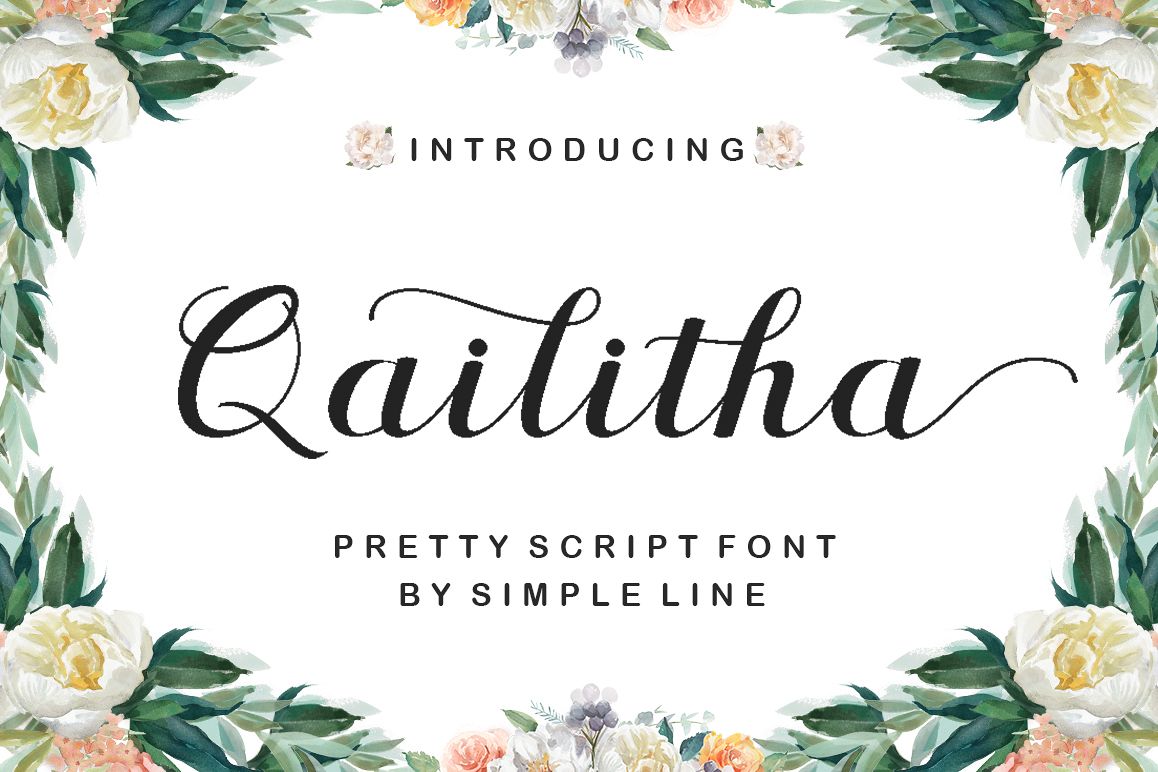
Qailitha Script
Qailitha Script is a modern brush font, organic, dynamic and energetic sytle.Can used for various purposes. such as the title, signature, logo, correspondence, wedding invitations, letterhead, signage, labels, newsletters, posters, badges, etc.Files included:Qailitha Script (otf, ttf) Qailitha Script (otf, ttf)To enable the OpenType Stylistic alternates, you need a program that supports OpenType features such as Adobe Illustrator CS, Adobe Indesign & CorelDraw X6-X7, Microsoft Word 2010 or later versions.How to access all alternative characters, using Windows Character Map with Photoshop: